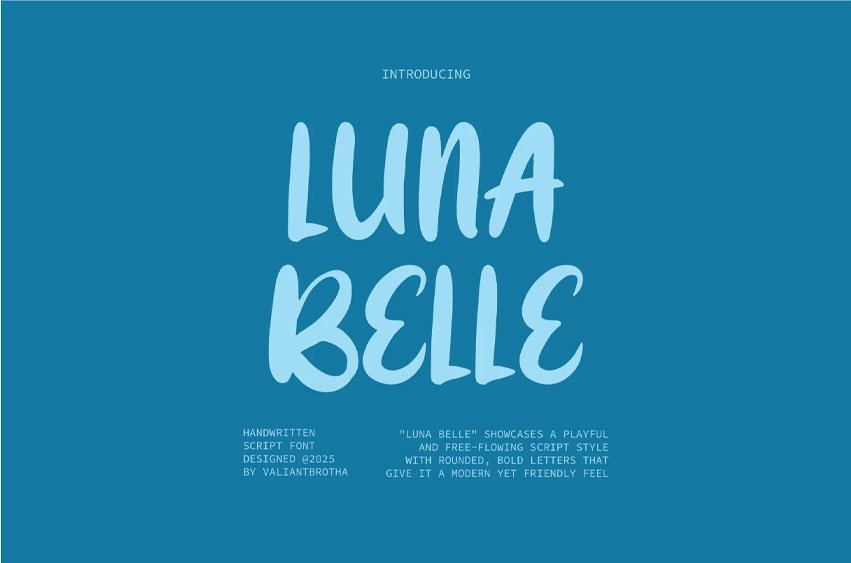
Luna Belle Font
Luna Belle Font is a handwritten script font that combines bold, rounded letters with a free-flowing design, giving it a modern yet friendly vibe.